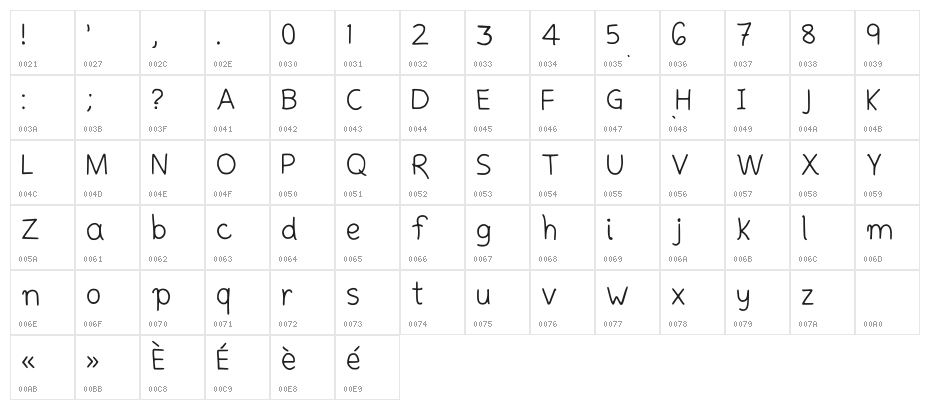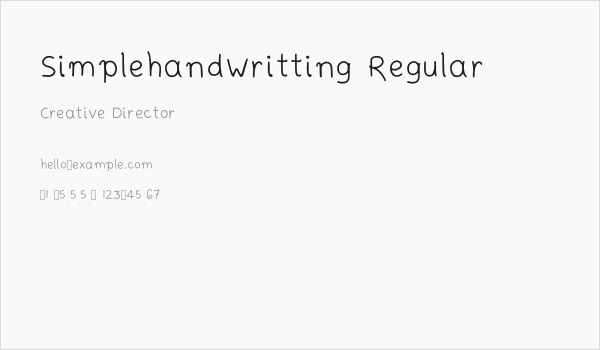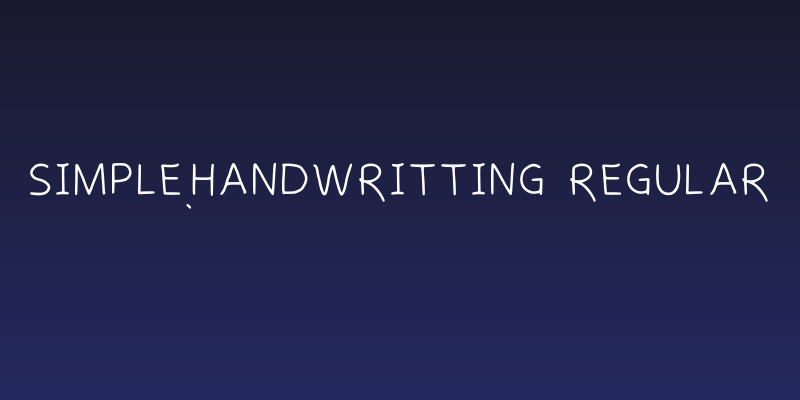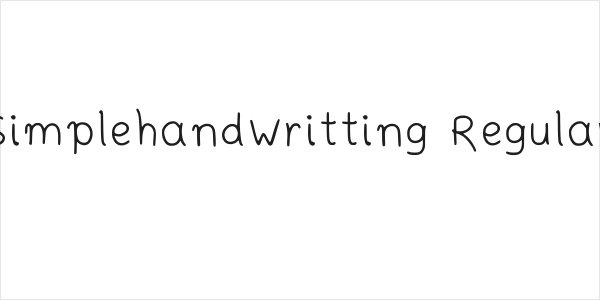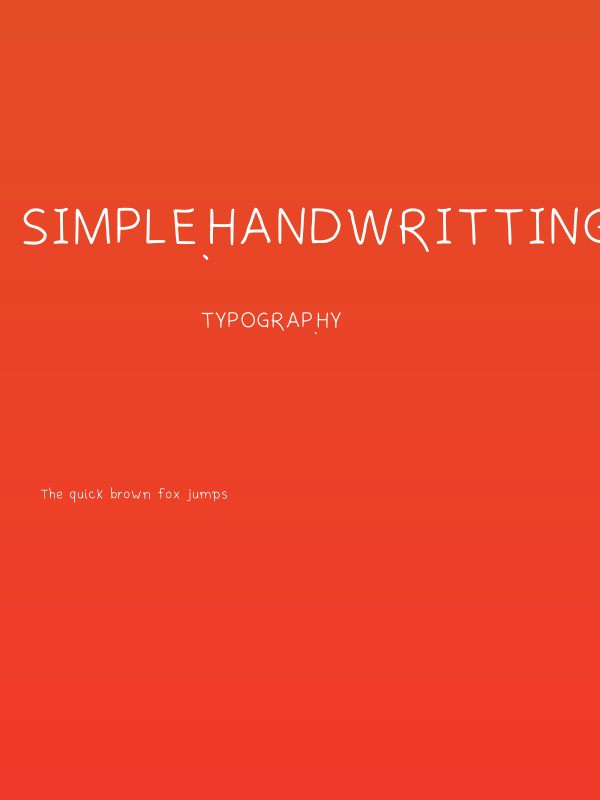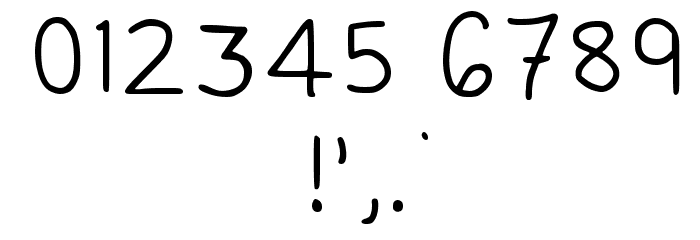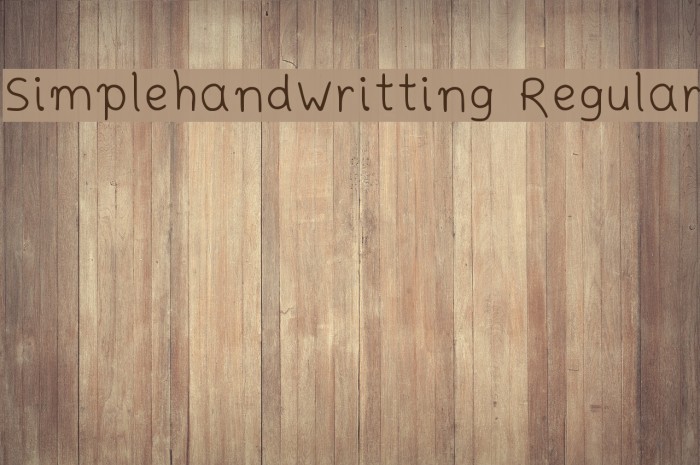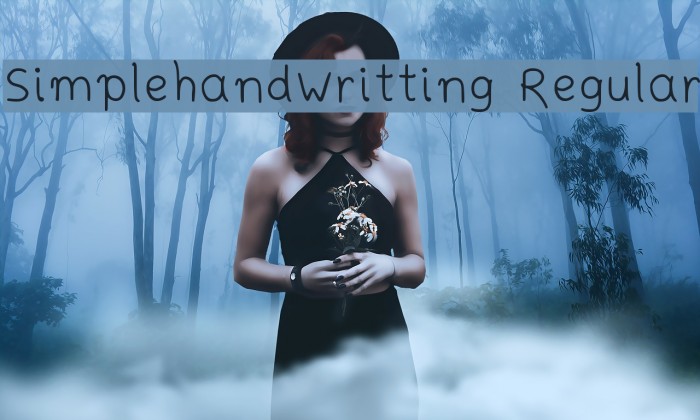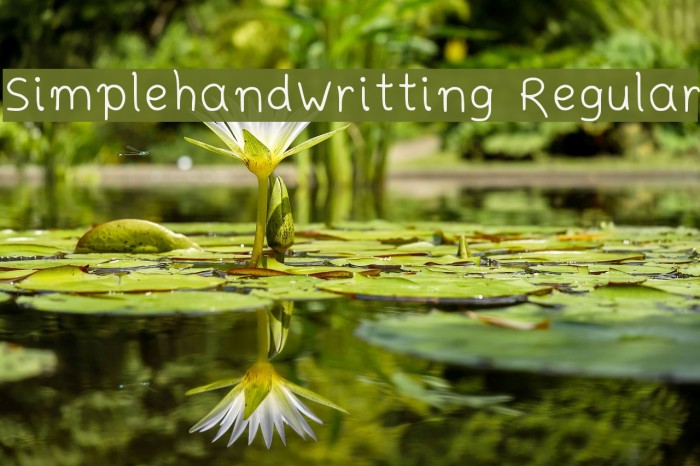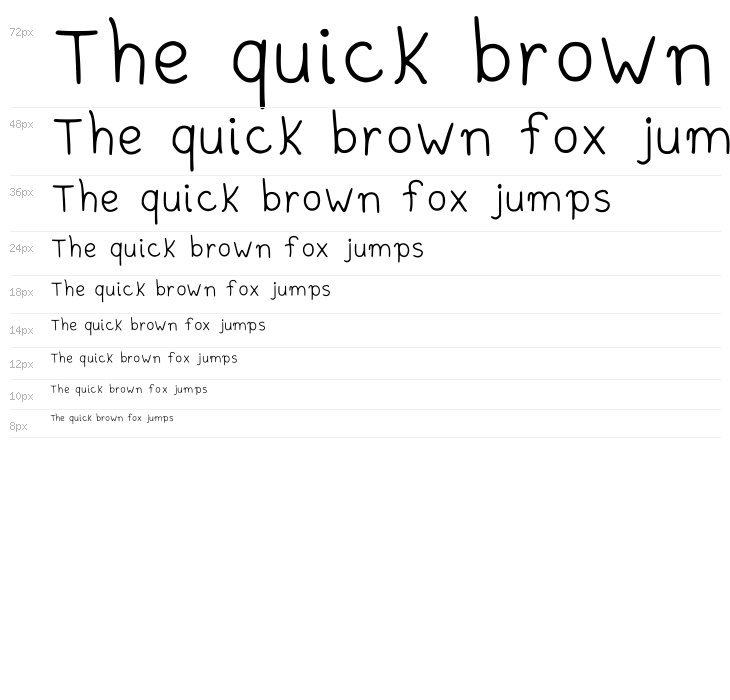
Simplehandwritting Regular Font
Simplehandwritting Regular Description
This font features a playful and casual handwritten style, characterized by its rounded and slightly irregular letterforms. The strokes are consistent in width, giving it a uniform appearance while maintaining a friendly and approachable vibe. The uppercase and lowercase letters are well-balanced, with a slight tilt that adds to the handwritten feel. Numbers and special characters are designed to match the overall style, ensuring cohesion across all elements. This font is ideal for projects that require a personal touch, such as greeting cards, invitations, or informal branding.
| Use Case | Headlines, Informal text, Personal projects |
| Proposed Projects | Greeting cards, invitations, informal branding, personal notes. |